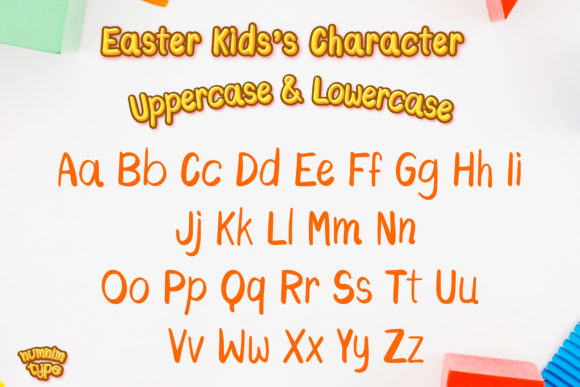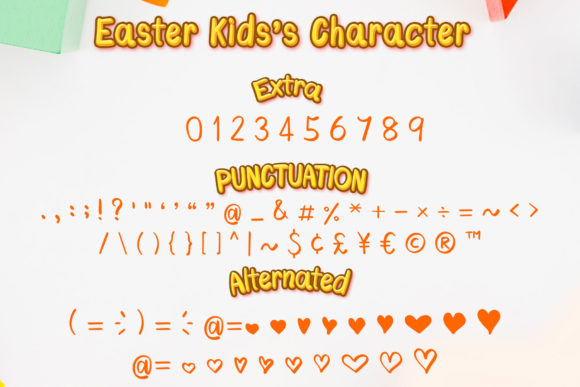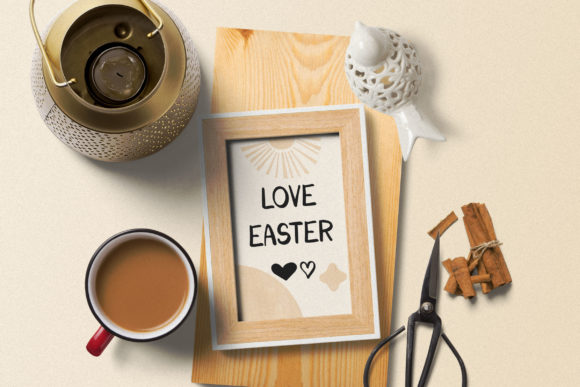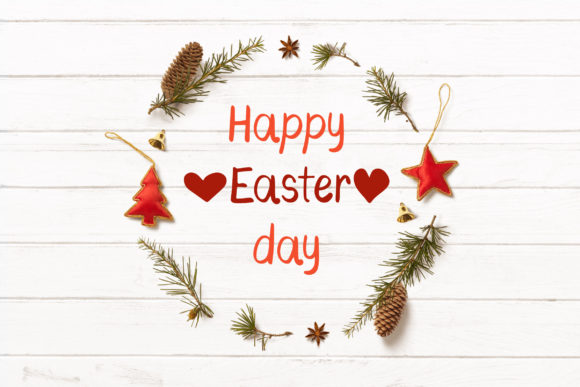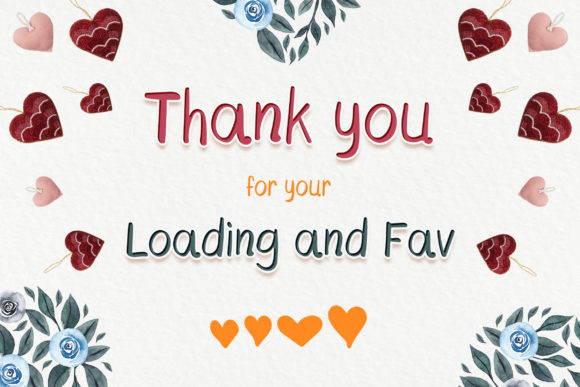
Easter Kids Font: The Perfect Addition to Your Design Collection
Are you a designer or crafter looking for a font that captures the essence of childhood and joy? Look no further than the Easter Kids Font! This delightful handwritten font is perfect for creating lovely designs for school or child-related projects. In this article, we’ll dive into the features and benefits of the Easter Kids Font, and explore how you can use it to take your designs to the next level.
What is Easter Kids Font?
Easter Kids Font is a joyful and friendly handwritten font that features cute doodle elements. Its sweet and versatile style makes it perfect for a wide range of design projects, from school materials to child-themed crafts. The font’s playful and whimsical feel is sure to capture the hearts of designers and crafters alike.
Key Features of Easter Kids Font
• Handwritten style: Easter Kids Font boasts a beautiful, handwritten style that’s perfect for creating personal and engaging designs.
• Cute doodle elements: The font features adorable doodle elements that add a touch of playfulness and whimsy to your designs.
• Sweet and versatile: Easter Kids Font is incredibly versatile and can be used for a wide range of design projects, from school materials to child-themed crafts.
• Easy to read: Despite its playful style, Easter Kids Font is easy to read, making it perfect for designs that require a clear and legible font.
Benefits of Using Easter Kids Font
So, why should you choose Easter Kids Font for your design projects? Here are just a few benefits of using this delightful font:
• Create engaging designs: Easter Kids Font is sure to capture the attention of your audience and create engaging designs that are perfect for school or child-related projects.
• Add a touch of whimsy: The font’s playful and whimsical feel adds a touch of magic to your designs, making them perfect for child-themed crafts and school materials.
• Perfect for DIY projects: Easter Kids Font is ideal for DIY projects, such as creating handmade cards, invitations, and crafts.
How to Use Easter Kids Font
Using Easter Kids Font is easy! Here are a few tips to get you started:
• Pair with other fonts: Pair Easter Kids Font with other fonts to create a unique and eye-catching design.
• Experiment with colors: The font looks great in a variety of colors, so don’t be afraid to experiment and find the perfect hue for your design.
• Add doodle elements: Take advantage of the font’s cute doodle elements to add a touch of playfulness to your design.
• Use for various design projects: Easter Kids Font is versatile, so feel free to use it for a wide range of design projects, from school materials to child-themed crafts.
Font Name Easter Kids Font
Author numnim
Easter Kids Font is a joyful and friendly handwritten font that’s perfect for designers and crafters looking to create engaging and whimsical designs. With its sweet and versatile style, cute doodle elements, and easy-to-read design, this font is sure to become a favorite in your design collection. So, why not give Easter Kids Font a try and see how it can elevate your designs to the next level?